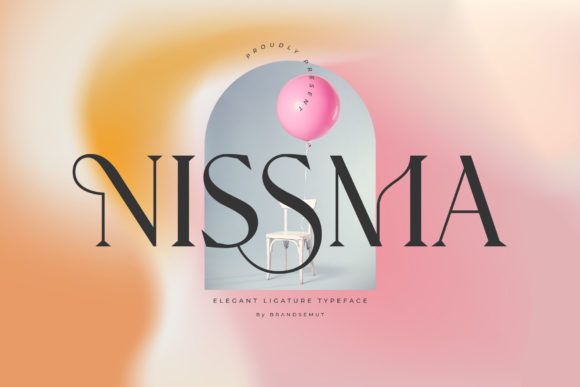
Feast your eyes on Nissma Font, a serif masterpiece that will elevate your presentation slides to the realm of eloquence and sophistication. Designed by the ingenious minds at BrandSemut, Nissma is a font that speaks volumes, exuding both elegance and class. Crafted with meticulous attention to detail, each letterform is a testament to the beauty and power of typography.
Nissma Font is the perfect harmony of tradition and modernity. Its delicate serifs and graceful curves lend an air of timeless elegance, while its clean lines and contemporary style ensure it remains relevant and impactful in the digital age. Whether you're a seasoned designer or just starting your creative journey, Nissma Font will become your trusted companion, effortlessly transforming your presentations into captivating visual masterpieces.
Step into a world where your ideas take center stage and shine brighter than ever before. With Nissma Font, your presentations will command attention, leaving audiences spellbound and eager to absorb your every word. Its distinct character adds a touch of magic to headlines, subheadings, and body text alike, ensuring your message is delivered with clarity, impact, and an unforgettable flair.
Unleash your creativity and explore the boundless possibilities that Nissma Font offers. Let your imagination soar as you craft slides that radiate sophistication and professionalism. Whether you're pitching a business plan, presenting research findings, or sharing your passion with the world, Nissma Font will elevate your words and captivate your audience.
With Nissma Font, you're not just presenting information; you're creating an immersive experience that transports your audience to the heart of your message. Its timeless beauty and unwavering elegance will make your presentations stand the test of time, leaving a lasting impression on all who encounter them.